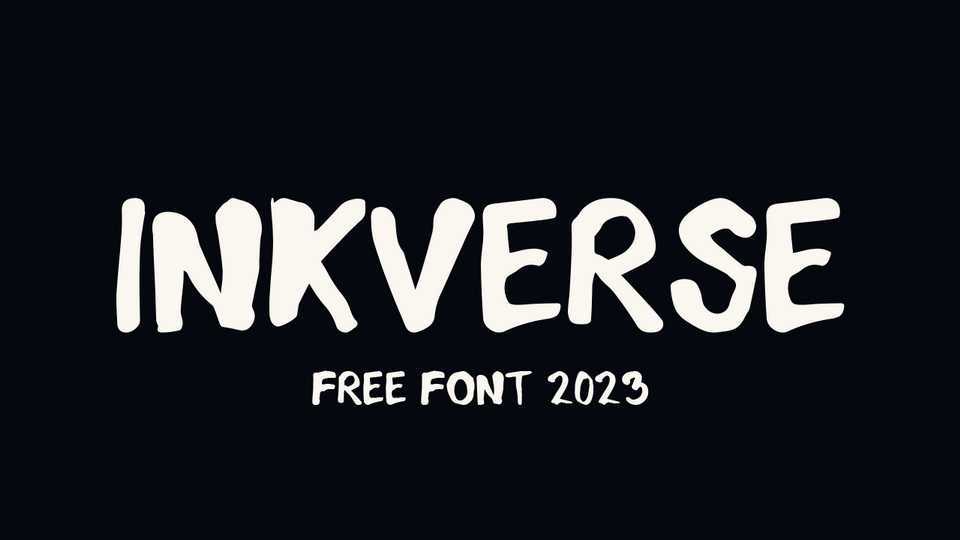
Download InkVerse font, a hand-painted typeface that captures the expressive and artistic essence of ink brush strokes. InkVerse font is thoughtfully crafted, bringing the organic and imperfect beauty of hand-painted lettering to your designs.